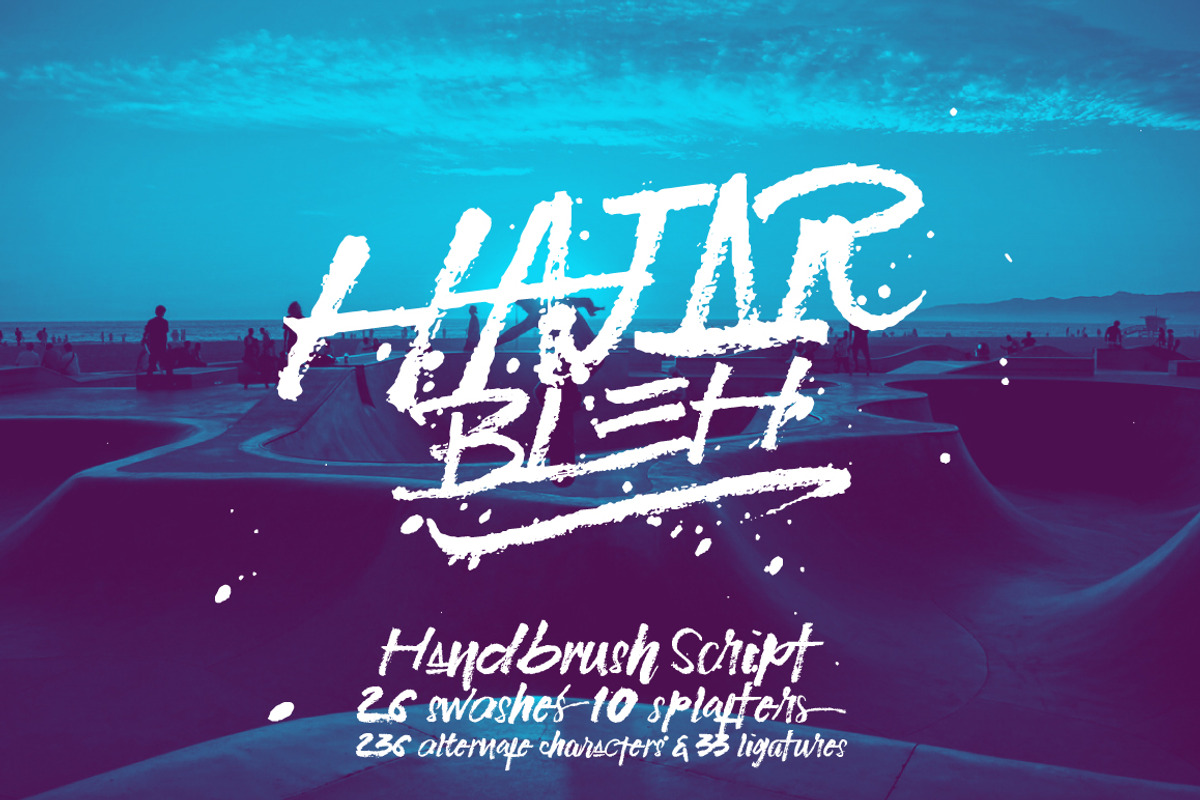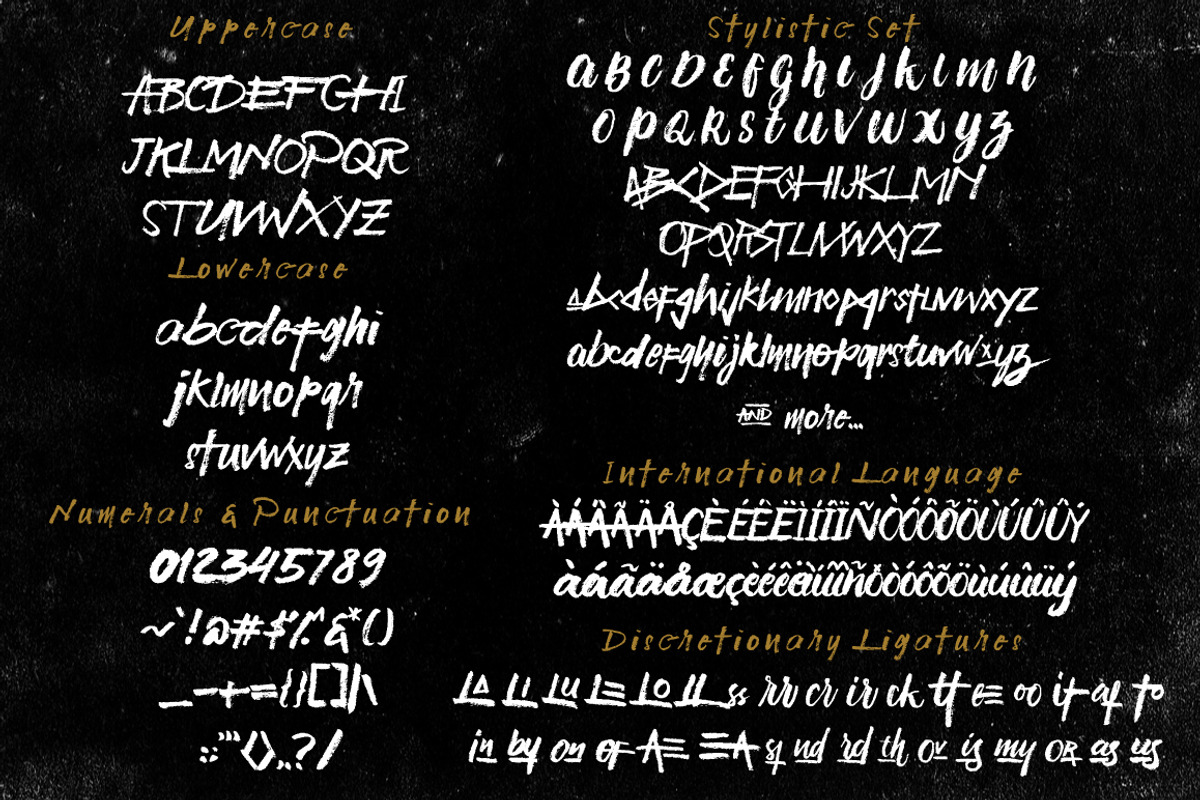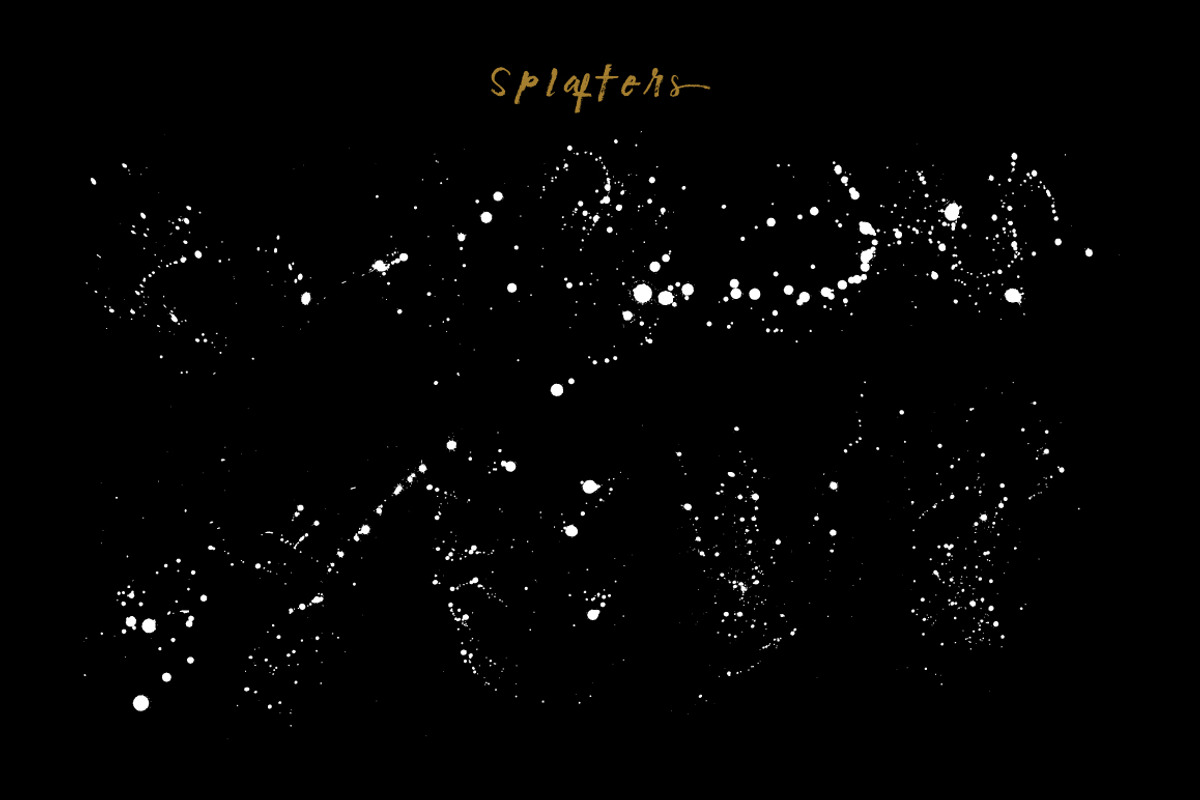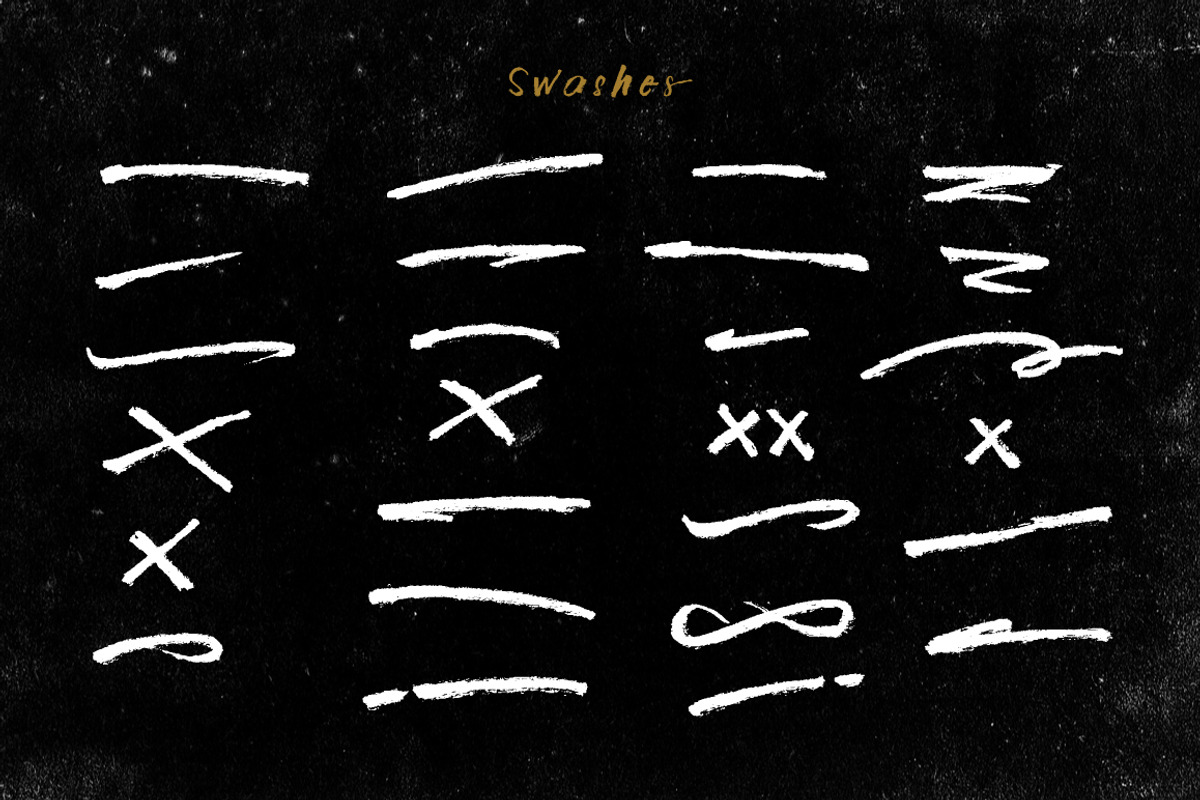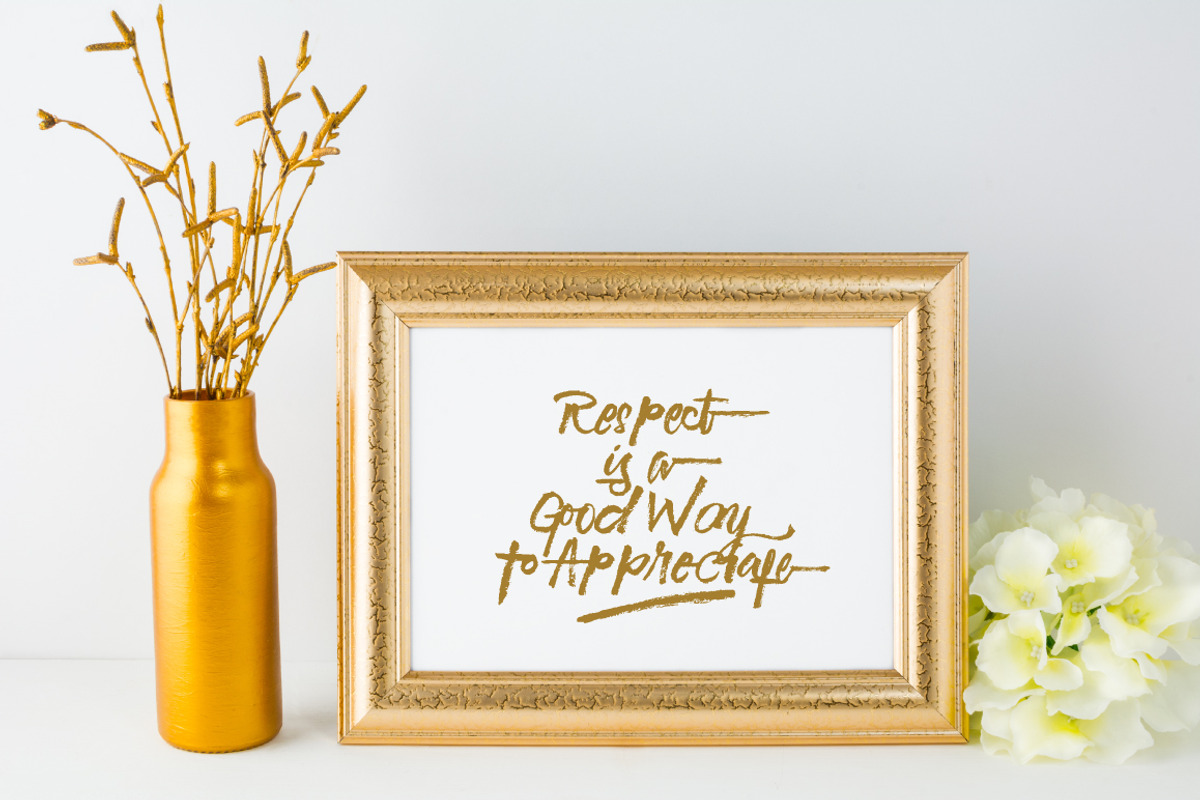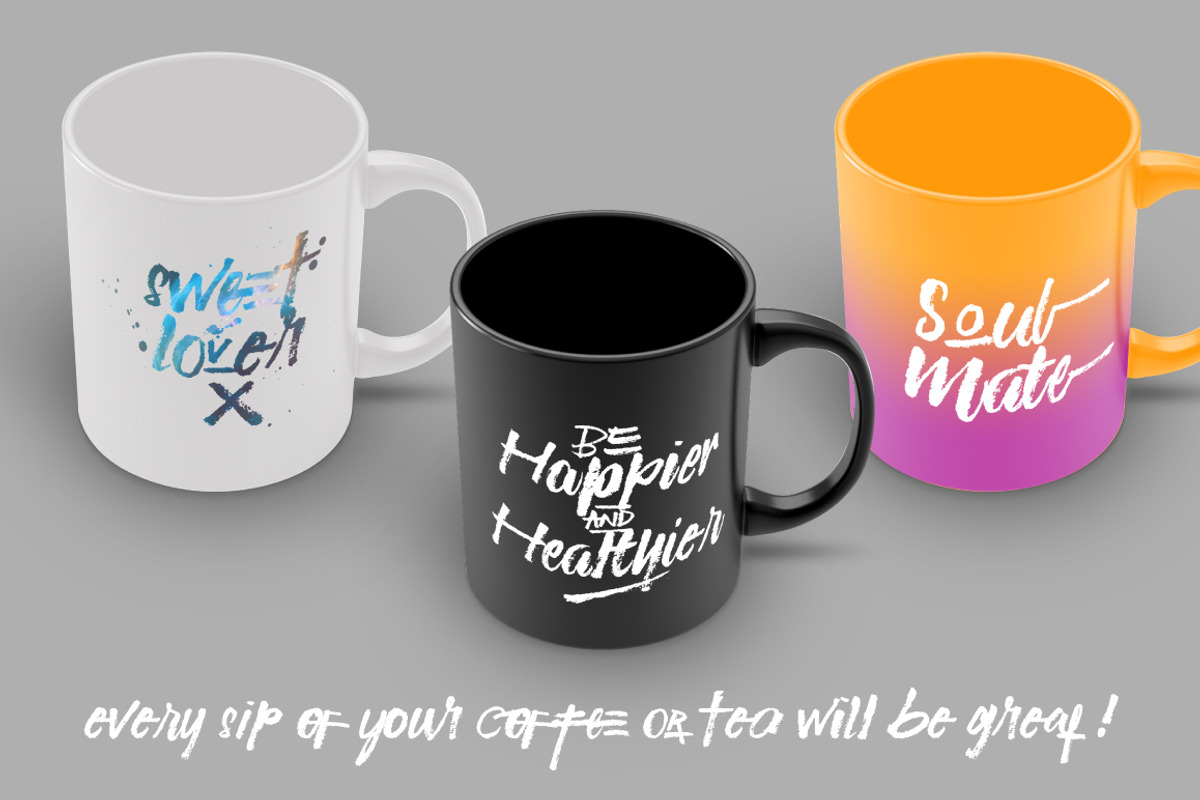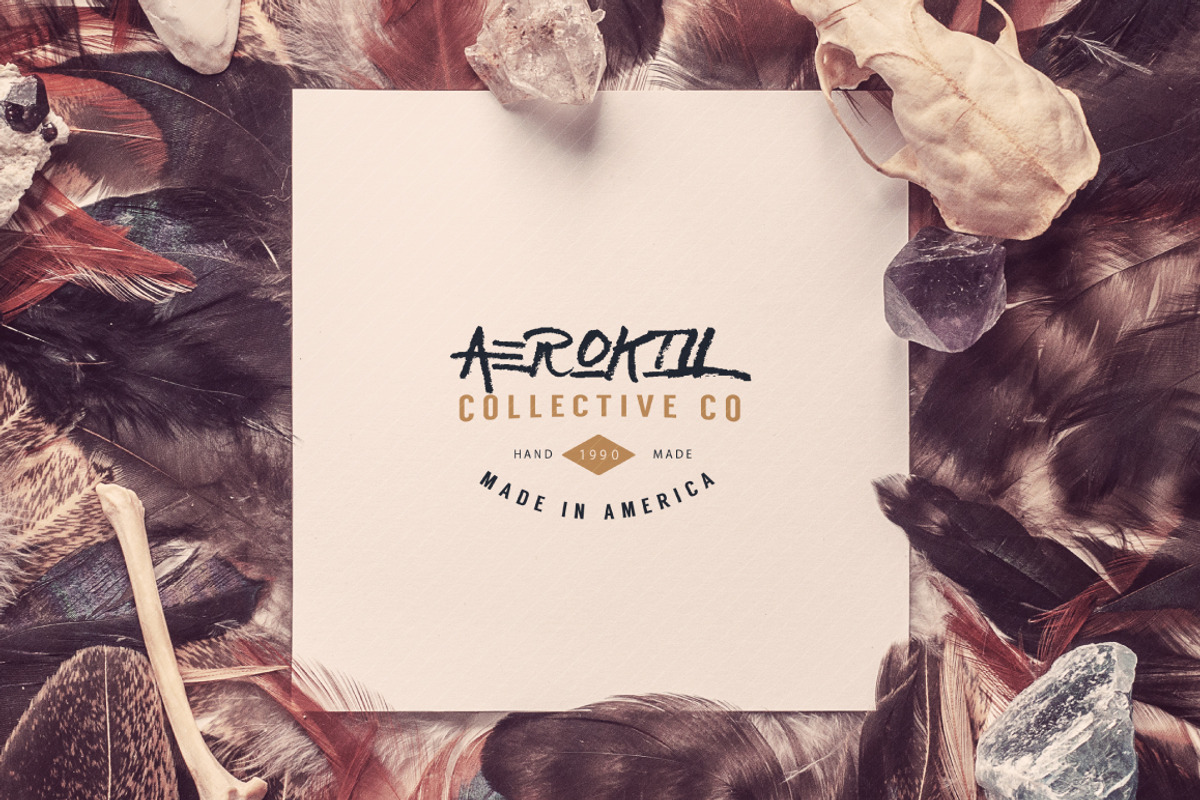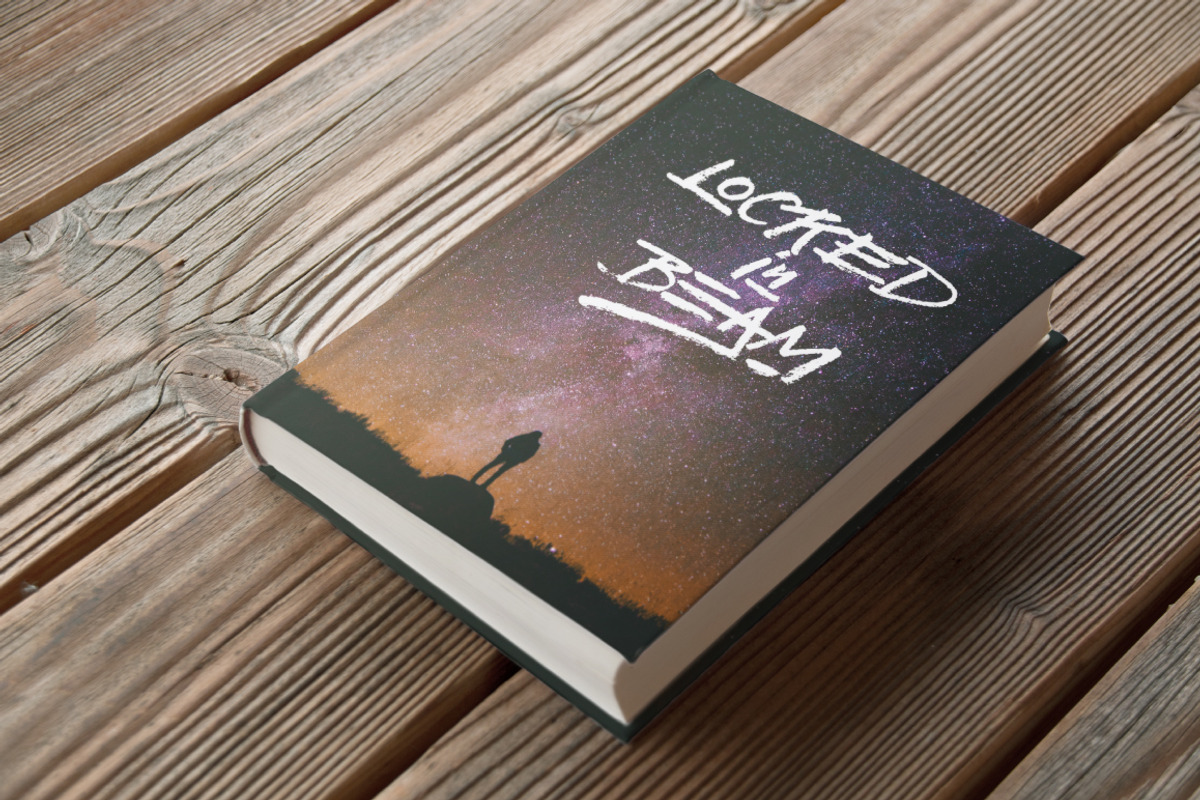
HajarBleh Brush Font
HajarBleh Brush Font by Kreasi Malam is a font selected for branding, posters, packaging, typography.
- Available in uppercase, lowercase, numerals and punctuations.
Why HajarBleh Brush Font is worth a look
HajarBleh Brush Font by Kreasi Malam fits naturally into Branding, posters, packaging, typography.